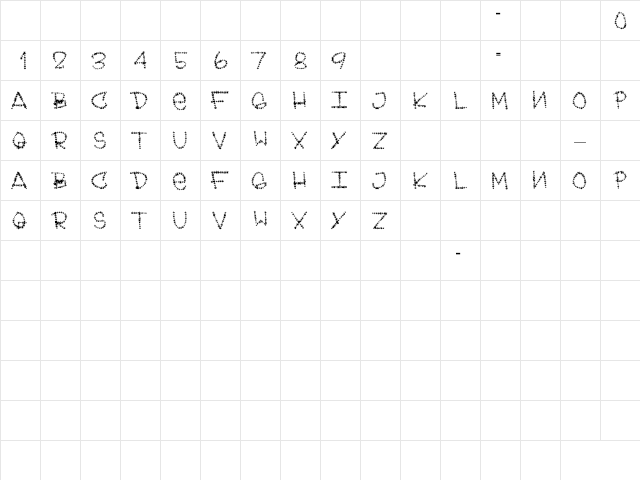
Weedface Regular
Design Context for Weedface Typeface
Weedface is a composed and adaptable typeface that performs quietly and consistently across a wide range of design contexts.